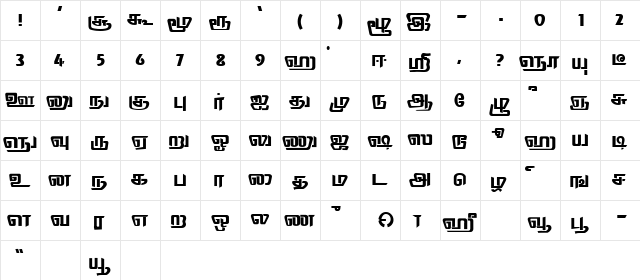
Thodiragam Regular
Design Context for Thodiragam Typeface
Thodiragam takes a measured approach to typography — its balanced proportions and neutral character make it a reliable workhorse for both digital and print work.